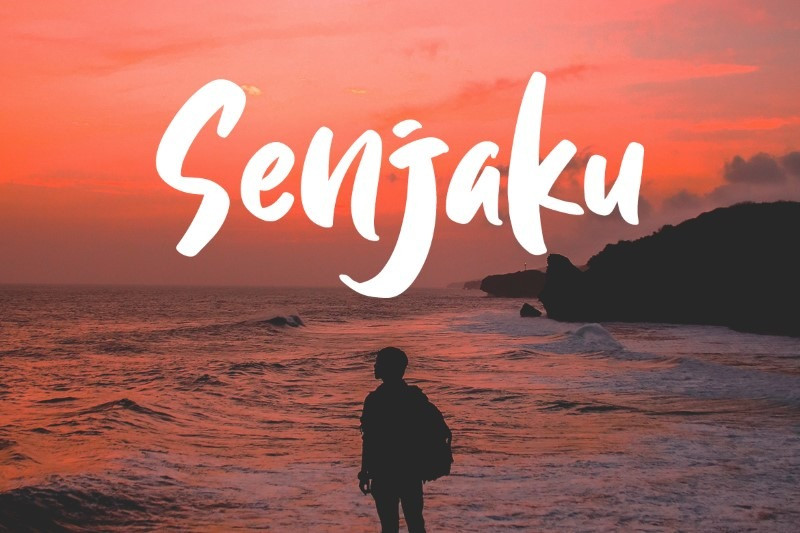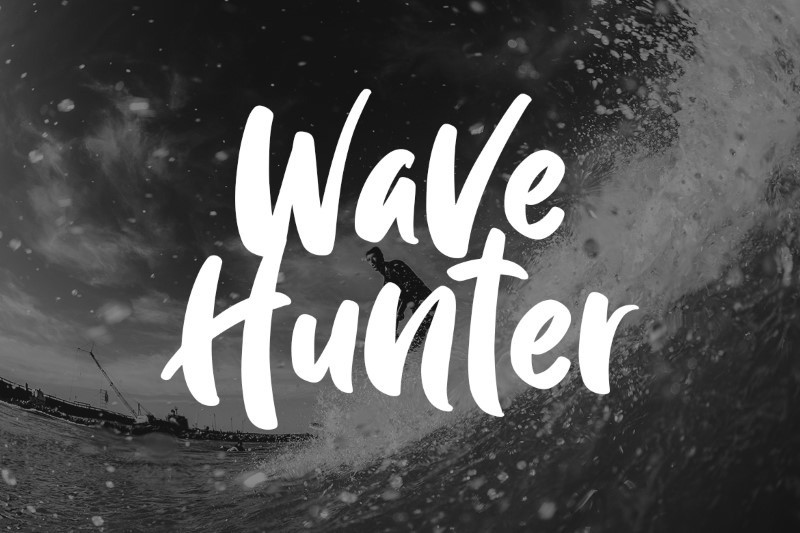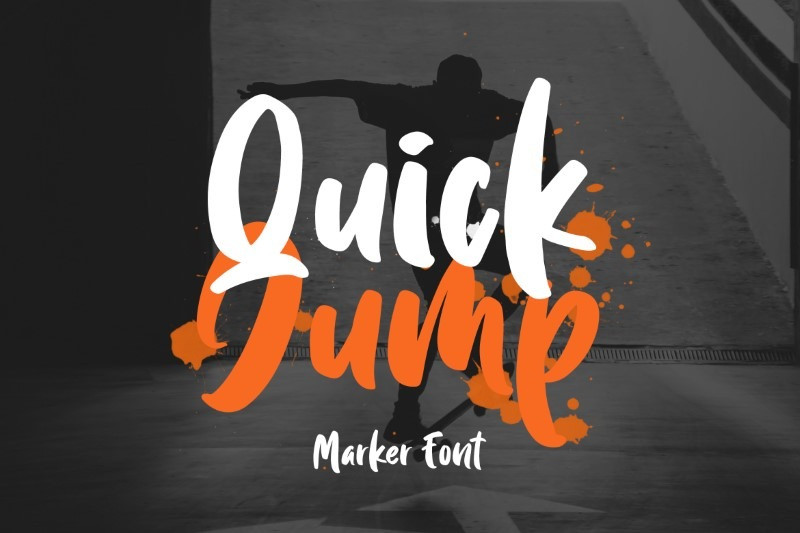
Quick Jump Brush Font
Introducing Quick Jump Brush Font. Quick Jump is a casual clean brush font . Made with naturally brush. The font will make your design more beautiful and powerful. This font is suitable for any design like branding, quotes, t-shirt printing and etc.